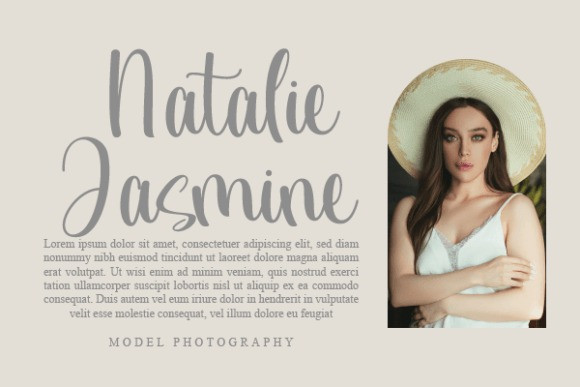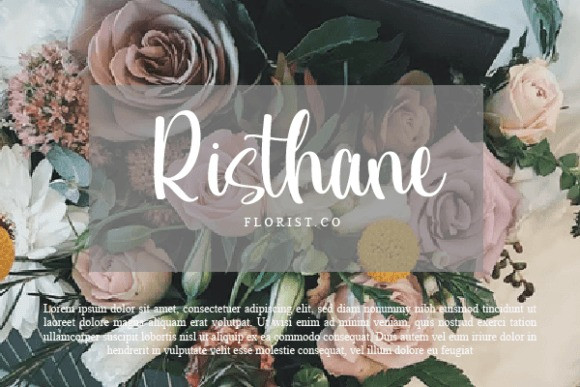
Skinner Rebecca Font
Skinner Rebecca’s latest style letters are perfect for wall displays, wedding invitations, social media post logos, advertisements, product packaging, product designs, labels, photography, watermarks, invitations, stationery, and any project that requires a handwritten taste.